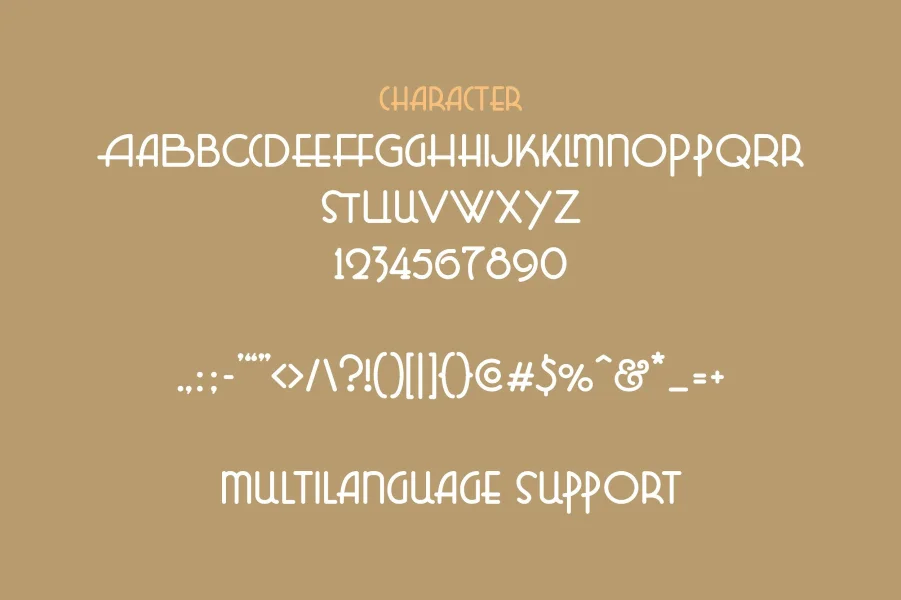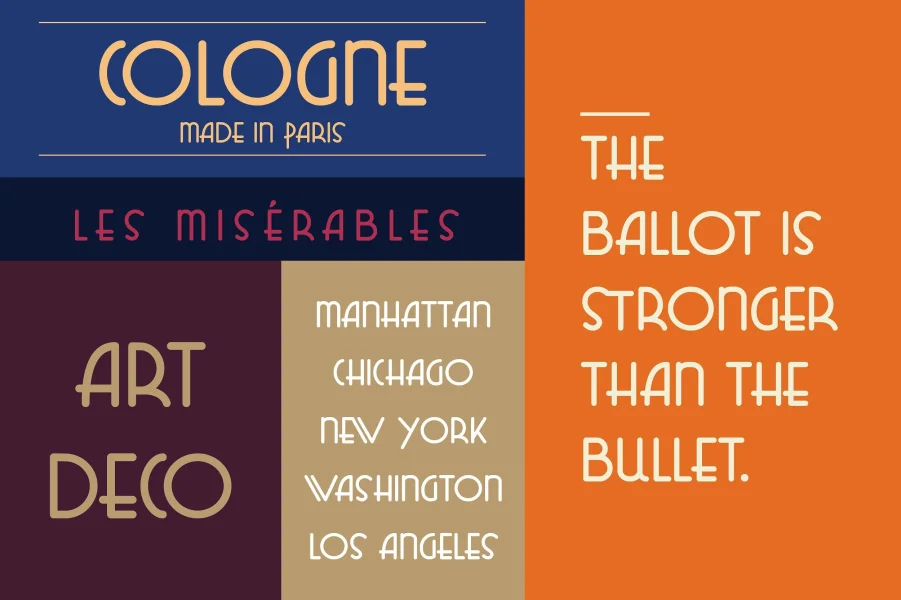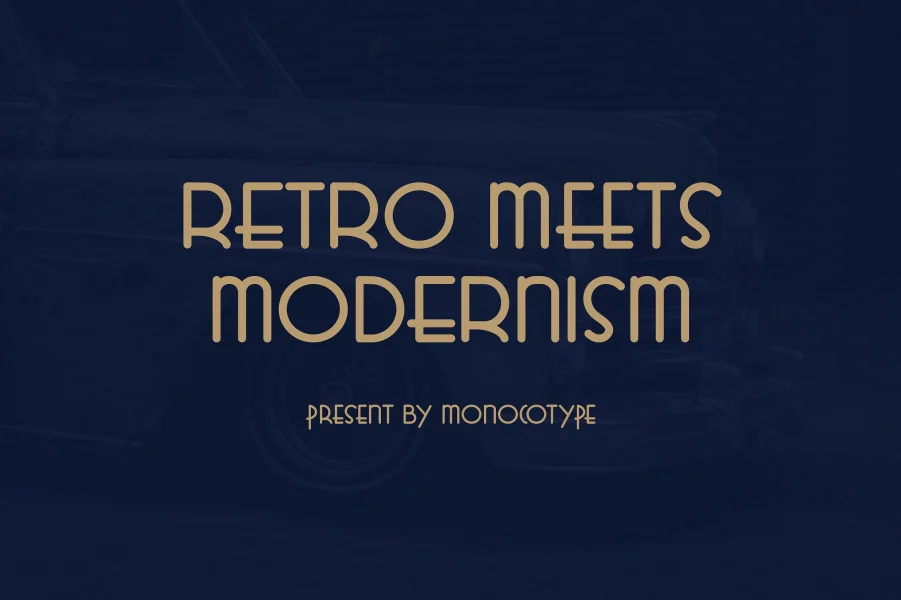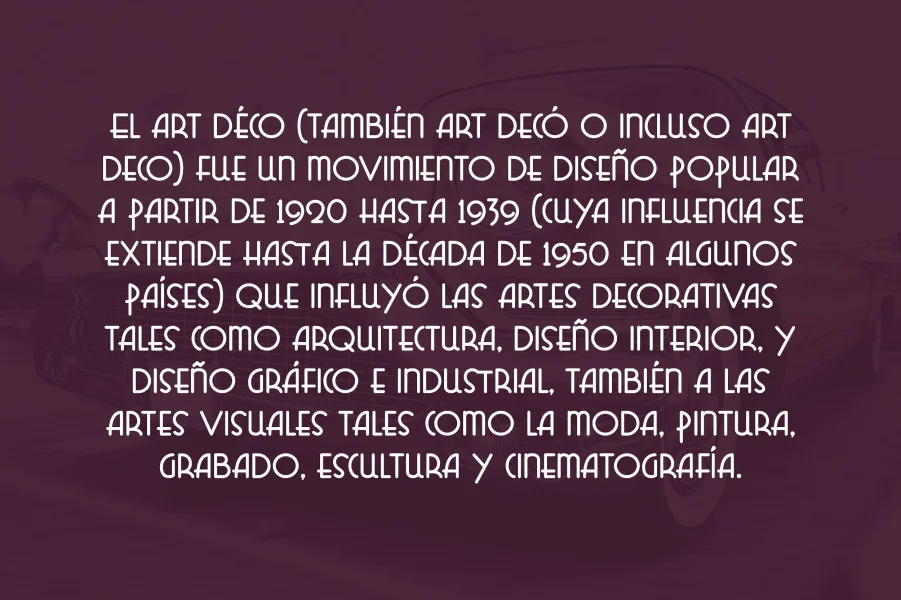
Cleveland is a sans serif font that has an Art Deco flow that became a trend in the past and then we bring it to the present. with a form inspired by the glory of retro style and uniqueness. we offer this typeface.